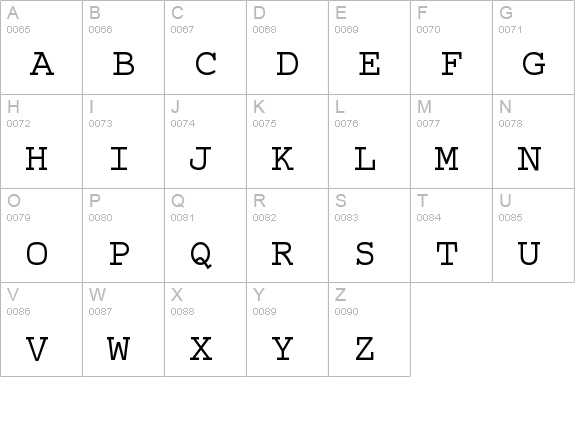
Courier font is a classic and timeless typeface that has been widely used in various applications for decades. Known for its monospaced design, Courier font exudes a distinctive and vintage feel that instantly captures attention. With its clean and simple lines, Courier font offers excellent legibility, making it perfect for both print and digital projects. Whether you are creating a professional document, designing a website, or even crafting a unique logo, Courier font ensures that your text stands out with its unique charm. One of the most remarkable features of Courier font is that it is freely available to download at FontsMarket.com. This means that you can easily access and use this fantastic font without any cost. It's a great advantage for designers, writers, and anyone who appreciates the beauty of typography. The versatility of Courier font is truly unmatched. It can be used for a wide range of purposes, from typing out a typewriter-style document to adding a touch of nostalgia to your creative projects. Its timeless appeal makes it a popular choice among professionals and enthusiasts alike. Whether you want to evoke a sense of authenticity, professionalism, or creativity, Courier font delivers every time. Its distinctive characters and consistent spacing make it an excellent choice for conveying a message with clarity and precision. In conclusion, Courier font is a must-have for anyone who values the power of typography. Its classic design, exceptional legibility, and the fact that it is freely available to download at FontsMarket.com, make it an ideal choice for all your creative endeavors. So go ahead and explore the world of Courier font, and let its timeless beauty elevate your designs to new heights.